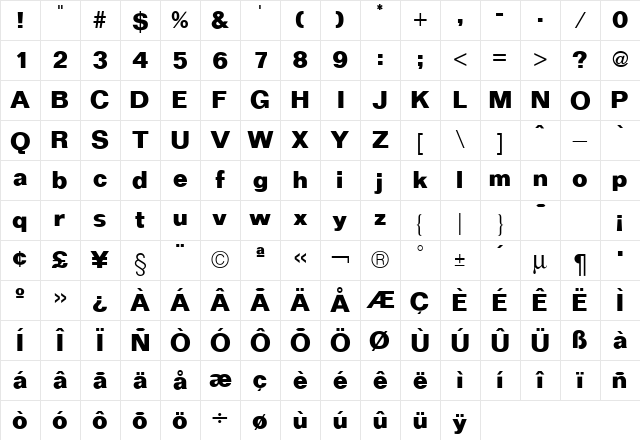
Complete Folio ICG Bold glyph index. Displaying only characters natively supported by Folio ICG Bold font.
Folio ICG is a composed and adaptable typeface that performs quietly and consistently across a wide range of design contexts. Its bold stroke weight gives it real presence on the page.